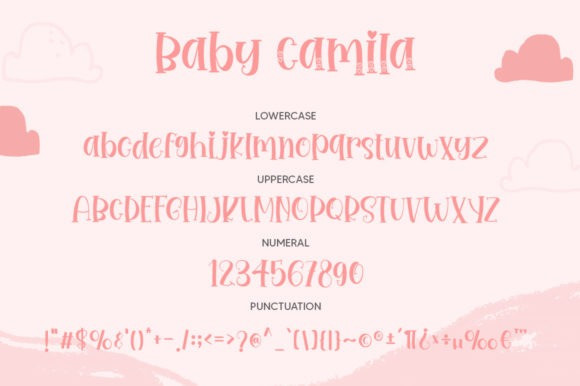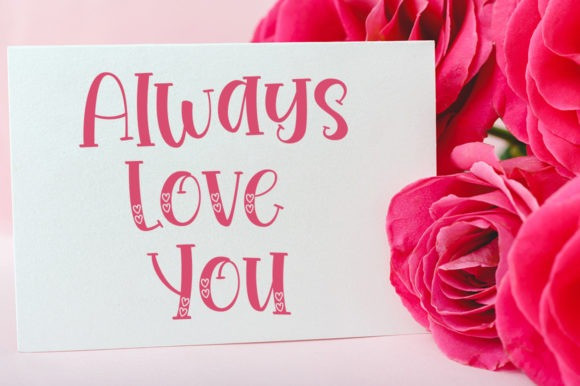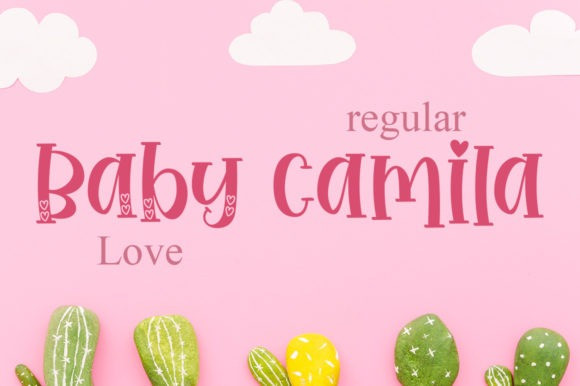
Baby Camila Font
Baby Camila Font is a fun and smart looking display font. It looks ravishing on invitations, thank you cards, quotes, greeting cards, logos, business cards and every other design which needs a customized touch.